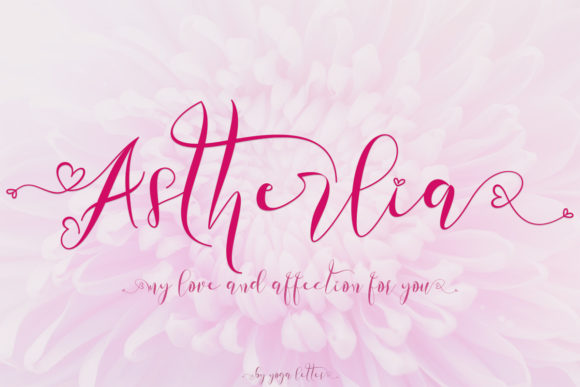
The Astherlia Font: A Romantic Gem for Your Creative Projects
I’ll never forget the moment I stumbled upon the perfect font for a wedding invitation design project. I had been searching for what felt like hours, trying out font after font, but nothing seemed quite right. That was until I discovered Astherlia – a lovely, romantic, and beautiful handwritten font that instantly captured the essence of the occasion. In this article, I’ll share my experience with Astherlia, its features, and how to make the most of it in your creative projects.
A Personal Review of Astherlia
• ✨ Beautiful and well-balanced characters that match a wide pool of designs
• ✅ Varying baseline that adds a touch of elegance to any project
• 💫 Smooth lines and gorgeous glyphs that make the font a joy to work with
• 🎉 Stunning alternates that offer endless creative possibilities
While Astherlia is an exceptional font, there are a few things to keep in mind:
• ⚠️ Some users may find the font’s handwritten nature a bit challenging to pair with very formal or corporate designs
• 🤔 The font’s uniqueness may make it less suitable for very long-form content, such as novels or articles
The Story Behind Astherlia
While the true story behind Astherlia remains a mystery, it’s easy to imagine that it was created by a designer who wanted to capture the essence of romance and elegance. Perhaps they drew inspiration from vintage love letters, antique books, or classic wedding invitations. Whatever the inspiration, Astherlia is a true gem that adds a touch of sophistication to any project.
Q: What type of projects is Astherlia best suited for?
A: Astherlia is perfect for creative projects that require a touch of romance and elegance, such as wedding invitations, love letters, and lifestyle designs.
Q: Can I pair Astherlia with other fonts?
A: Absolutely! Astherlia pairs well with a range of fonts, from serif and sans-serif fonts to other script fonts. Experiment with different combinations to find the perfect match for your project.